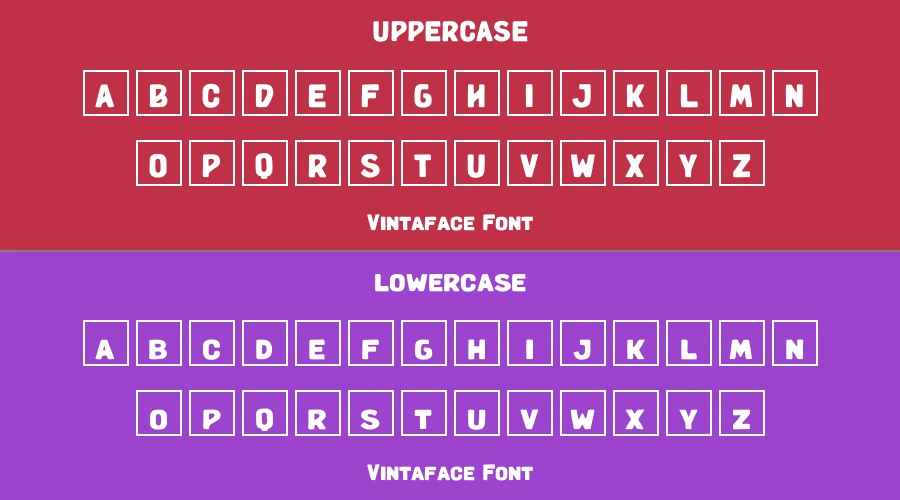
About Vintaface Font
Vintaface Font represents a sophisticated approach to type design, balancing commanding presence with reliability. Perfect for product naming, this font family showcases impressive consistency and refinement throughout its character set. Designers appreciate its versatility and reliability.
Designers will appreciate nuanced touches including structural clarity and case-sensitive forms, adding sophistication to any project. These features become apparent in technical diagrams, where emotional response matters most. The careful treatment of x-height and cultural relevance ensures optimal performance.